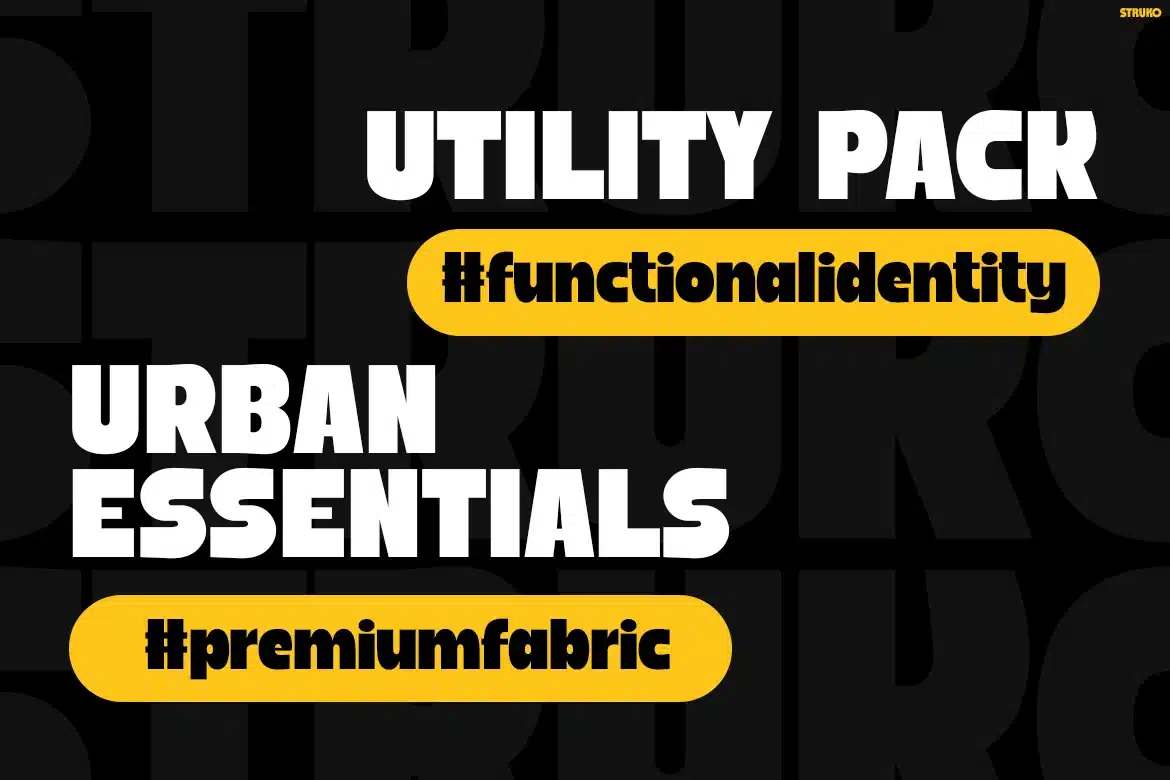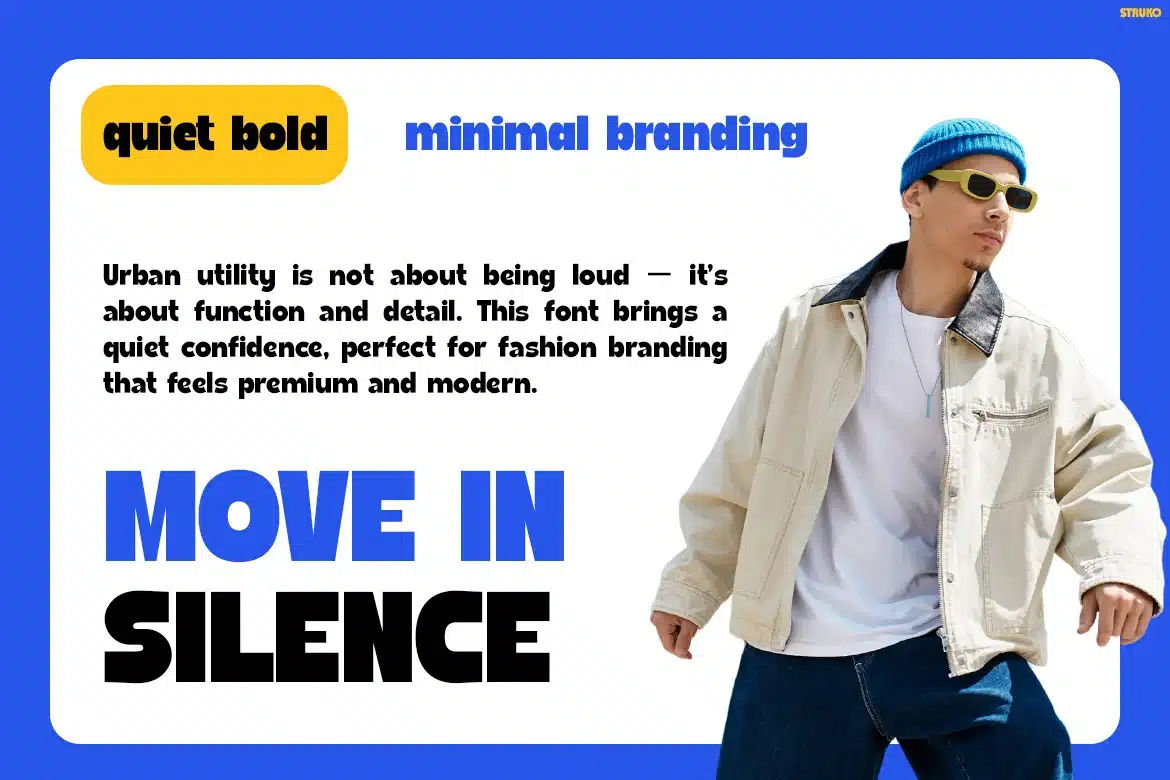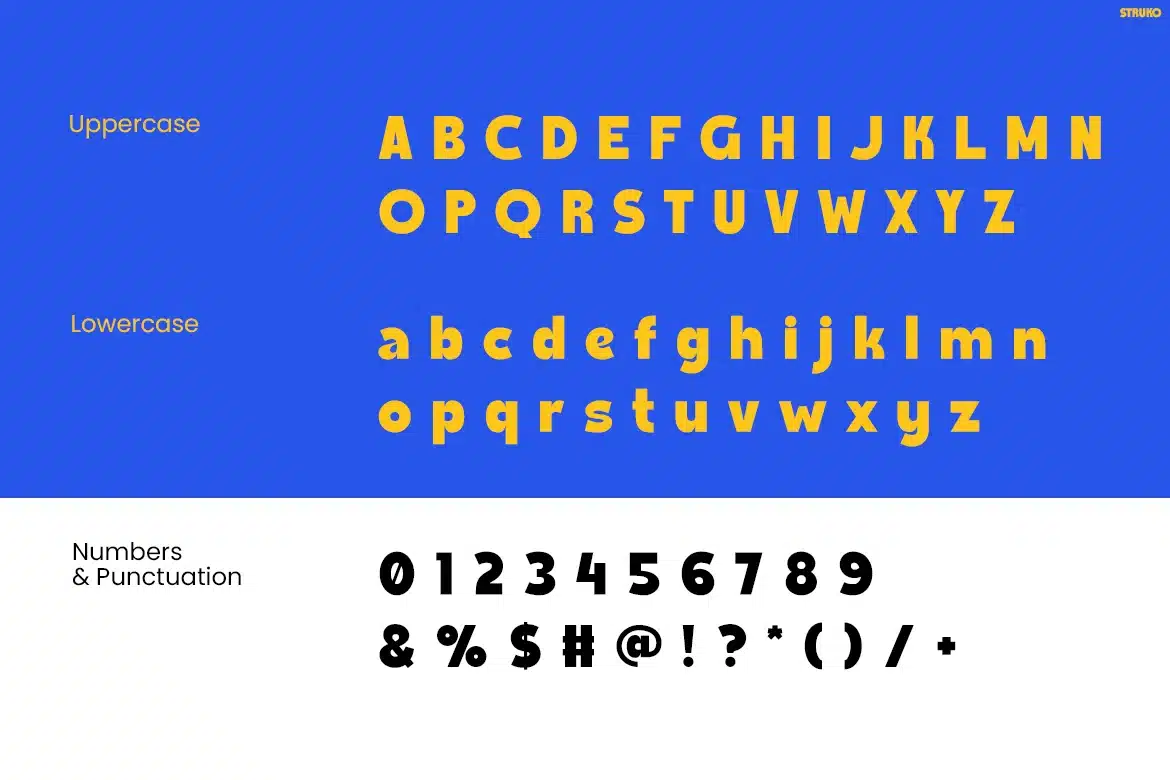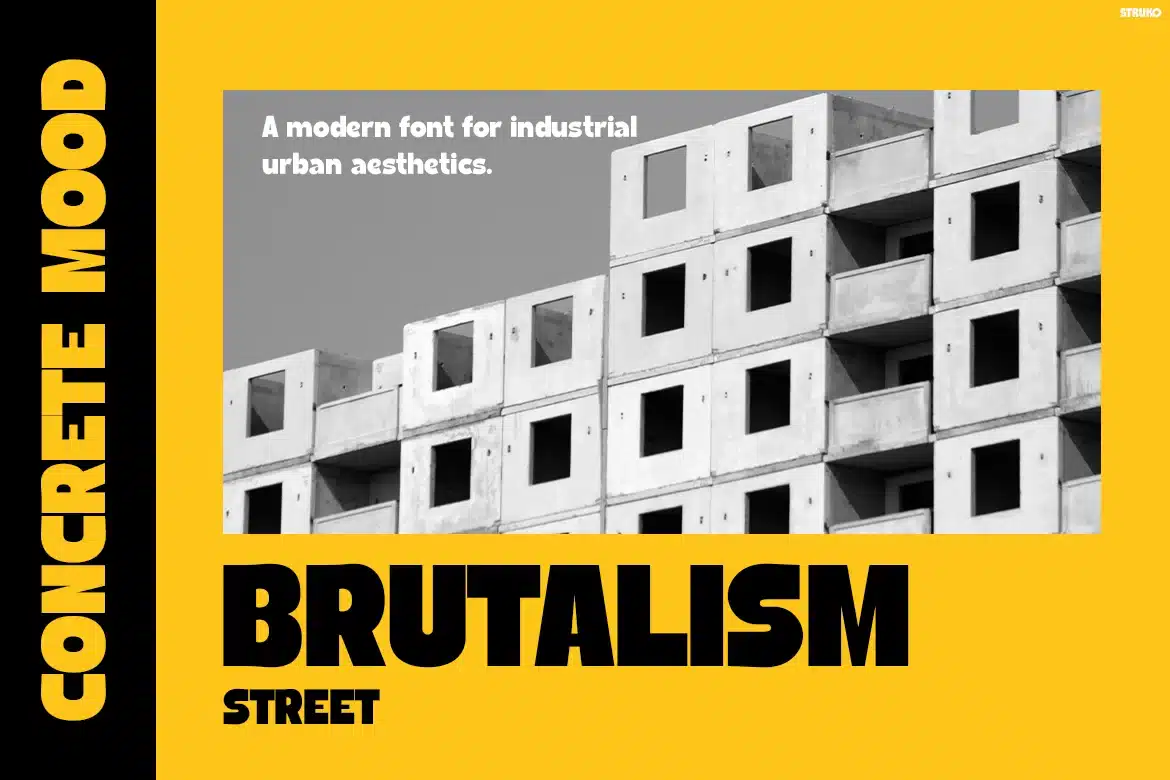
Struko – Modern Brutalist Display Font
STRUKO – Modern Brutalist Display Font
STRUKO is a bold geometric display typeface engineered for modern branding and urban visuals, combining strong structural letterforms, low contrast strokes, and firm proportions that deliver a confident, clean, and highly impactful presence.
With its bold, industrial, and minimal vibe, STRUKO is tailored for branding, tech startups, editorial layouts, and poster design. The geometric construction and sharp edges create a solid and authoritative look, while its balanced spacing ensures clarity and hierarchy in both large headlines and structured compositions. This typeface communicates strength, precision, and modern utility.
STRUKO is designed for creators who need clear, high-impact visual communication. Whether you're working on branding systems, posters, app UI, editorial spreads, or fashion campaigns, this typeface brings a bold and structured voice that stands out instantly. Its industrial aesthetic makes it ideal for projects that demand confidence, durability, and modern identity—perfect for tech labels, tech brands, creative agencies, and digital products. If your goal is to create designs that feel strong, sharp, and purposeful, STRUKO delivers with precision.
Key Features :
Bold Geometric Construction
Strong, clean letterforms built for clarity and visual dominance. -
High Impact Display Style
Optimized for headlines, posters, and large-scale branding. -
Industrial & Urban Aesthetic
Perfect for tech, and modern editorial visuals. -
Clear Visual Hierarchy
Structured spacing ensures readability and organized layouts. -
Versatile Application Range
Works across branding, UI design, posters, editorial, and packaging.
- Basic Latin A–Z and a–z
- Numbers